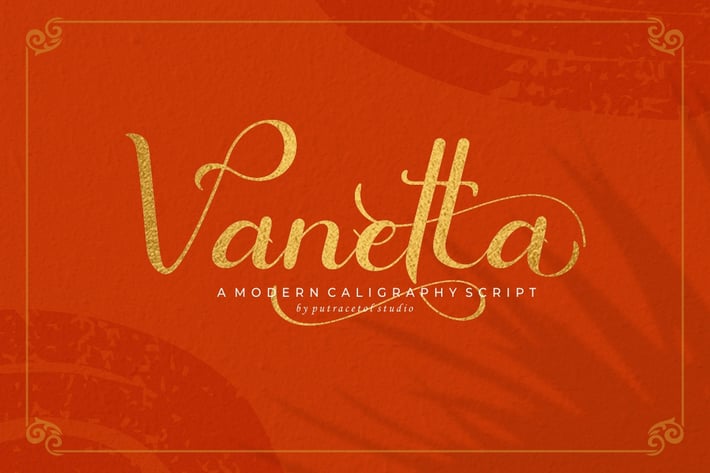
Vanetta - Modern Script Font
Vanetta
Introducing Vanetta, a modern script font with a lot of alternates character and unique flourish.
This font is perfect for logotype creation, lettering compositions, wedding invitations, fashion projects, book design cover, magazines typography, cards, packagings, posters, branding and more.
Come with Opentype feature with a lot of alternates, its help you to make great lettering. This font is also support multi language.
Alternate
Number, Punctuation And Symbols
Multilanguage Support.